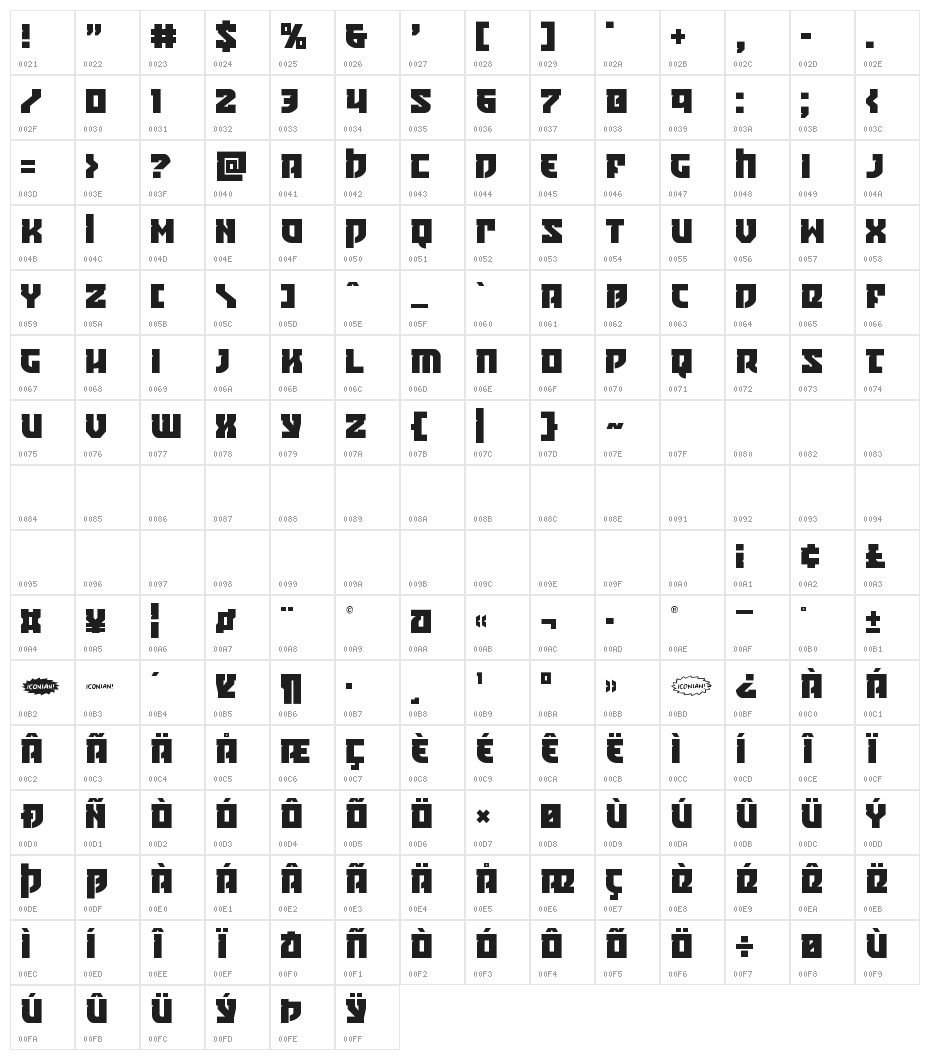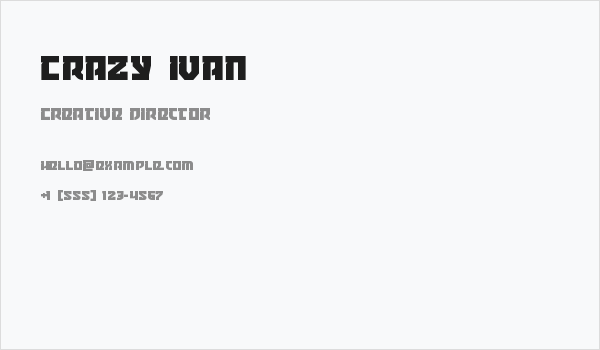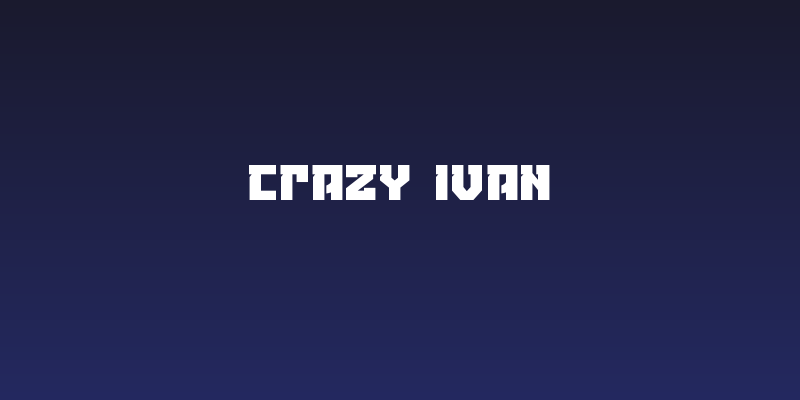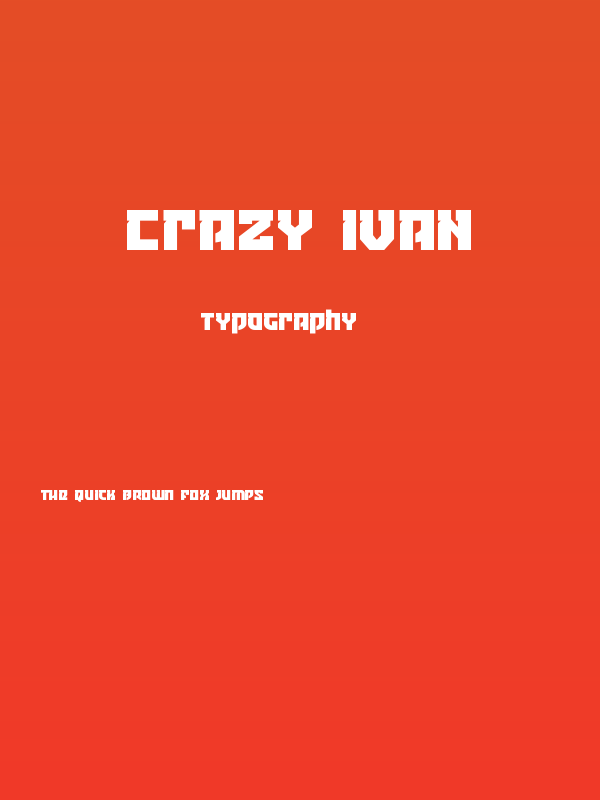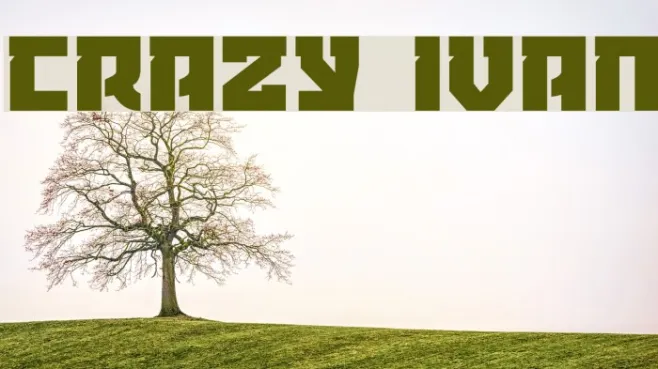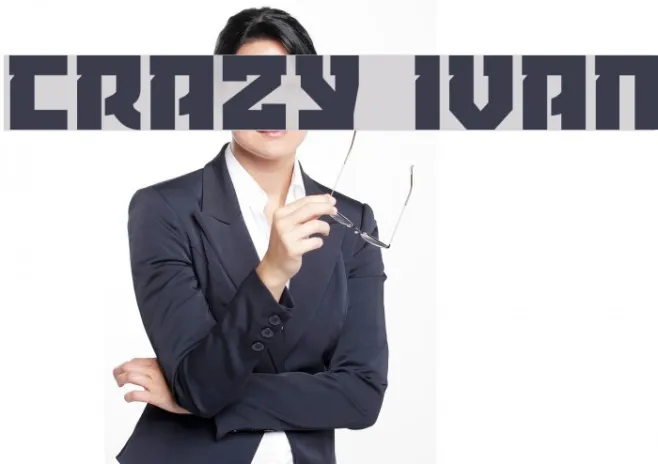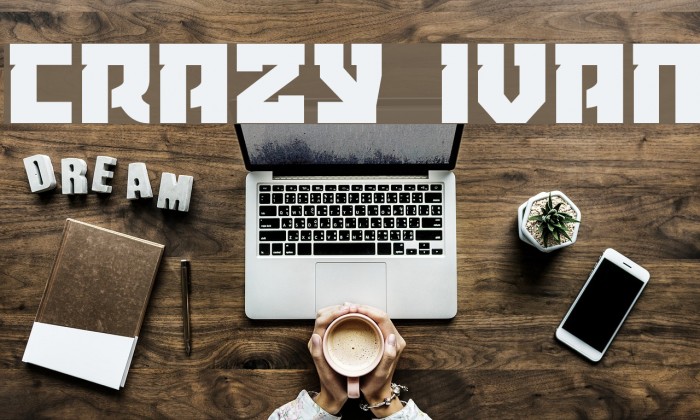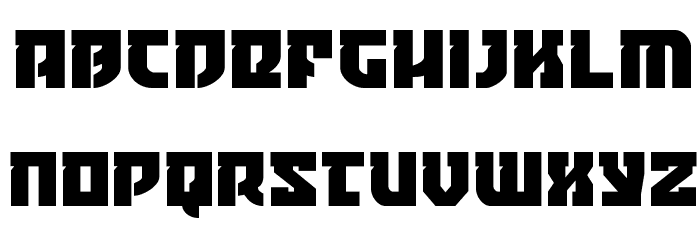
Crazy Ivan Font
Crazy Ivan Description
This font exhibits a bold and geometric style with sharp angles and a blocky appearance. The characters are designed with a strong emphasis on straight lines and angular cuts, creating a dynamic and striking visual impact. The uppercase and lowercase letters maintain a consistent weight, contributing to a cohesive and uniform look. The numerals and special characters follow the same design principles, ensuring a harmonious overall aesthetic. This font's unique style makes it stand out, offering a modern and edgy feel suitable for various creative applications.
| Proposed Projects | Ideal for posters, logos, video game titles, and branding that requires a modern and bold statement. |